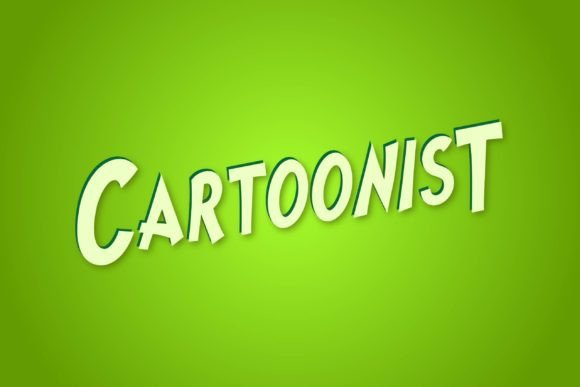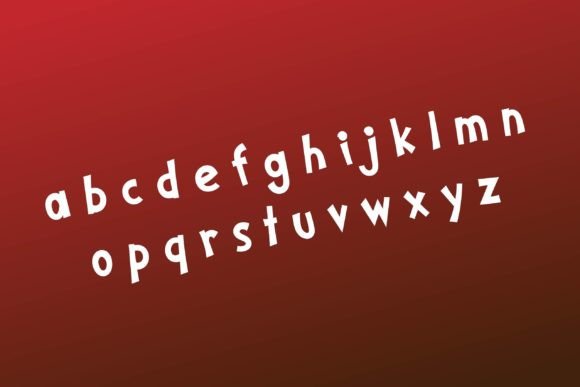
Grinch 3.0 Font
Introducing Grinch 3.0, an exquisite Stylish Decorative Font crafted by Gothic, seamlessly blending modern quality with the whimsical charm of the Grinch Cartoon Font. Ideal for title headings, movie names, and T-shirt designs, this font boasts 96 meticulously designed glyphs and 95 characters, embodying a popular and captivating concept that adds flair to any creative project.